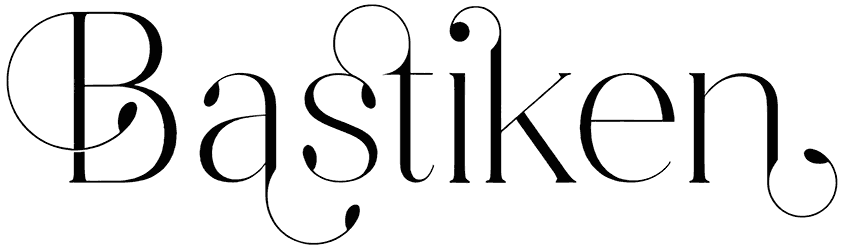
Bastiken Font
You can’t ask for a better font than Bastiken for designing a fancy logo for accessories, a sign for a flower shop, or a title for a poetry book. This amazing luxury serif font and its blooming letters take care of all that like nothing else.
Everything may look so simple, but there are also some extra decorative features working to keep these words amusing. Anything sounds more interesting when it’s customized so tastefully with a floral font like Bastiken.